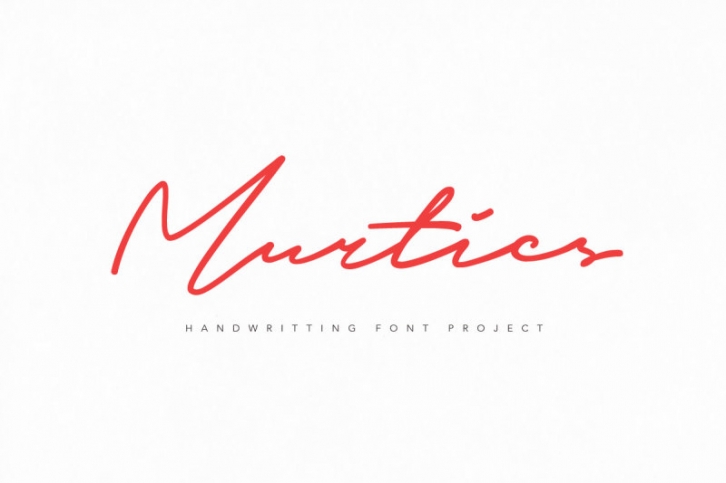
Murtics is signature font, every single letters have been carefully crafted to make your text looks beautiful. With modern script style this font will perfect for many different project ex: quotes, blog header, poster, wedding, branding, logo, fashion, apparel, letter, invitation, stationery, etc.
Murtics script including ligature, alternate glyph and extra swirl.